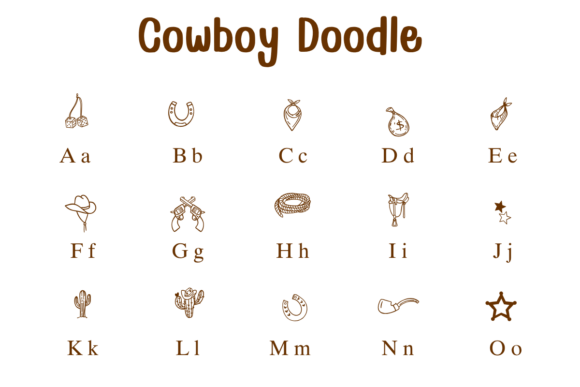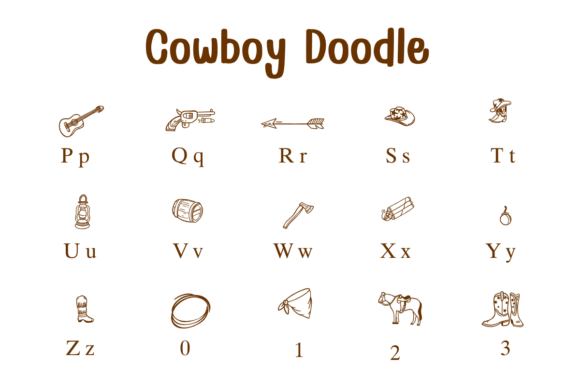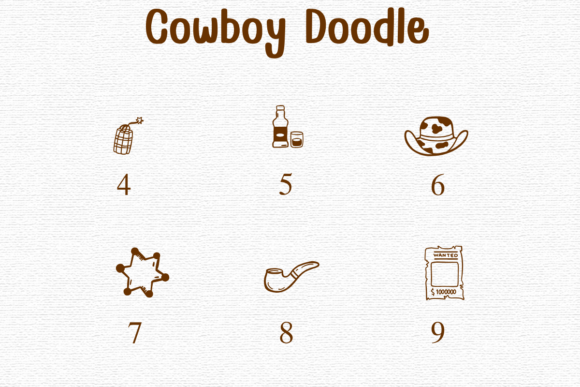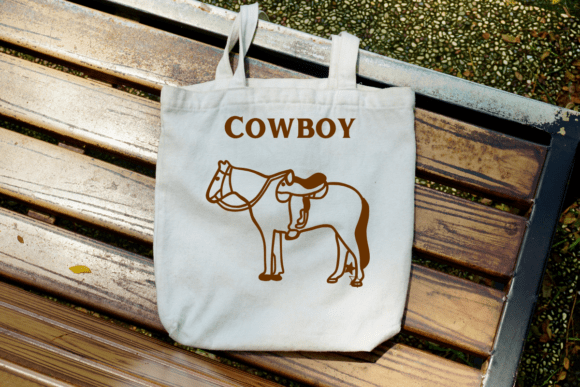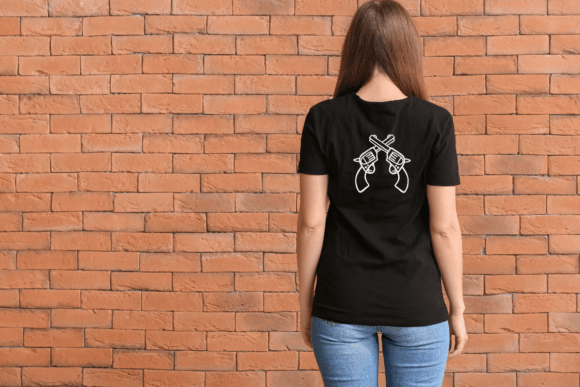
Introduction to Cowboy Doodle Font
Have you ever been brainstorming a new design project, and suddenly, a spark of creativity hits you – the Wild West comes alive in your imagination, and you envision a dusty, sun-scorched landscape dotted with cowboy hats and lassos? For designers, this moment of inspiration is a treasure trove of creative possibilities, and the right font can make all the difference. That’s where the Cowboy Doodle Font comes in – a charming dingbats font that captures the essence of frontier life in a charming, rustic way.
Whether you’re working on a themed event invitation, rustic boutique branding, or a western-inspired social media layout, the Cowboy Doodle Font delivers a sense of professional craftsmanship and legendary frontier fun to your visual identity. Its warm, monolinear stroke and organic texture make it the perfect design resource for creative projects that demand a high-quality, authentic look.
Key Features of Cowboy Doodle Font
- High-quality vector design for a seamless and scalable experience, ideal for use in creative projects.
- Features a transparent background, allowing for easy integration with any design or background.
- Includes a range of unique doodle elements, such as cowboys, horses, and other western-themed icons.
- Designed to be easily customizable, with a simple and intuitive style that can be used in a variety of creative contexts.
- Perfect for use in graphic design, illustrations, and other creative projects where a fun and playful western theme is desired.
Honest Review: Cowboy Doodle Font
I recently stumbled upon the Cowboy Doodle Font while searching for a design resource for my latest creative project. I was drawn in by its charming, hand-drawn aesthetic and decided to give it a try.
- High-quality design: The font is well-designed and looks great on a variety of backgrounds.
- Limited character set: The font only includes a limited character set, which may not be suitable for all projects.
- No bold or italic variations: While the font is great for body text, it doesn’t offer any bold or italic variations for headings.
Overall, I was impressed with the Cowboy Doodle Font and would recommend it for creative projects where a high-quality, hand-drawn aesthetic is desired. ⭐️⭐️⭐️⭐️ (4/5 stars)
Designing with Cowboy Doodle Font
The Cowboy Doodle Font is a free download design resource ideal for creative projects requiring a high-quality, western-inspired look. With a transparent background, this font is versatile and can be used across various platforms.
Tips for Getting the Most Out of Cowboy Doodle Font
To maximize the use of the Cowboy Doodle Font, experiment with different font sizes, colors, and combinations with other design elements. This will help you achieve a unique and eye-catching design.
The Cowboy Doodle Font is ideal for use in western-themed designs, such as invitations, posters, and business cards. It’s also suitable for use in educational materials, like worksheets and activity sheets.